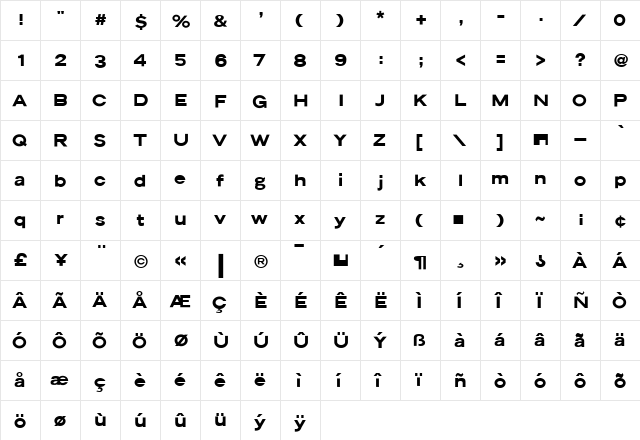
Lunar Regular
Design Context for Lunar Typeface
Lunar offers clean, dependable letterforms without strong stylistic allegiance, making it a practical choice for designers who need flexibility.